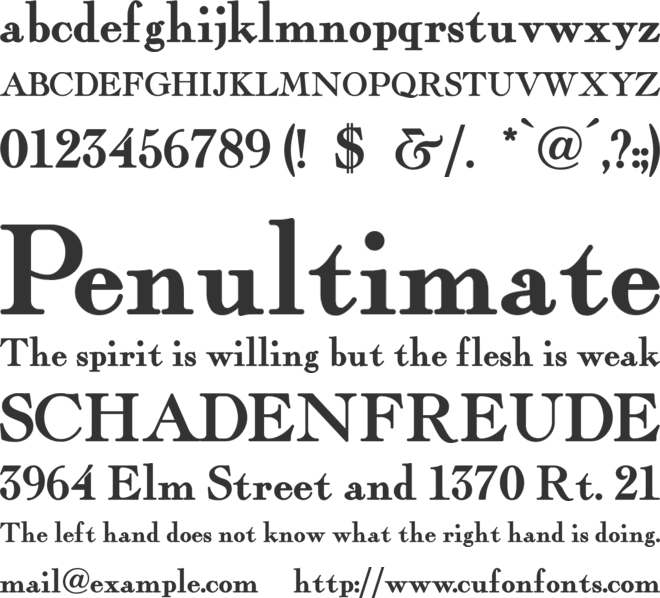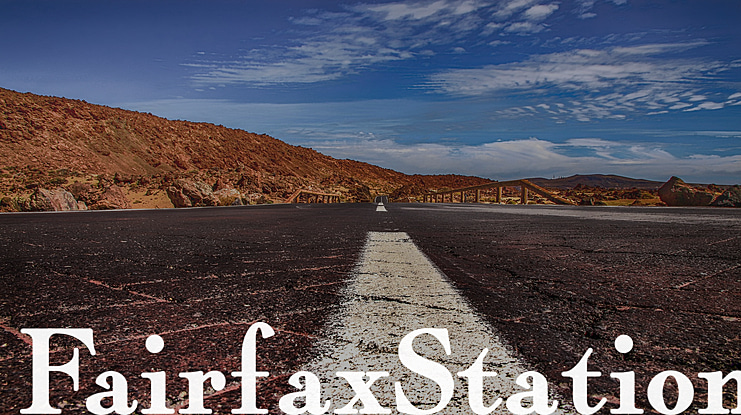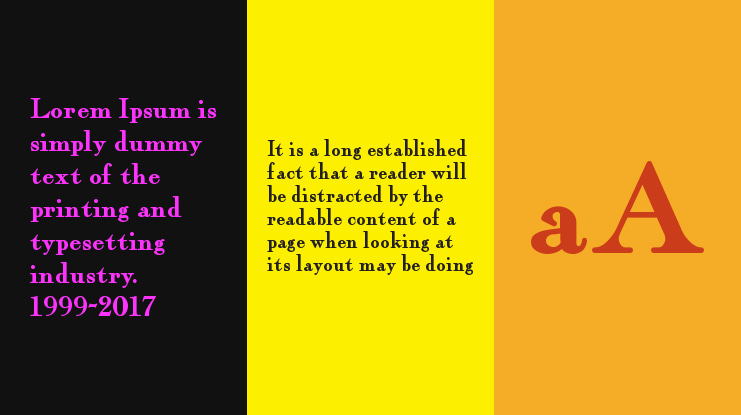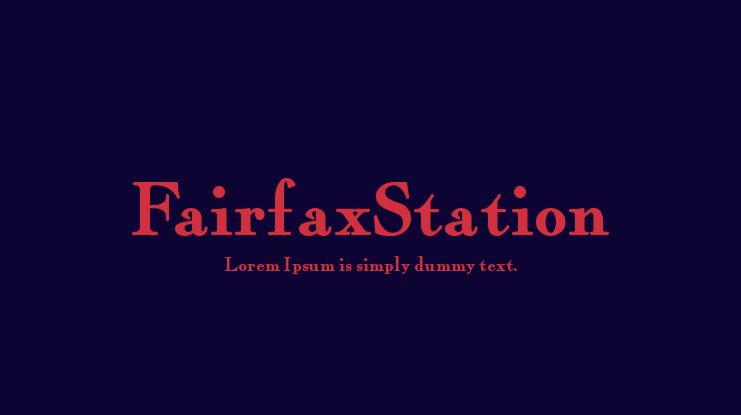
FairfaxStation Font
The first in a series of “Storybook Fonts,” patterned after typefaces commonly used in children’s books around the turn of the twentieth century. This font gets its letterforms from Caslon Openface, but the incising has been eliminated, the stroke broadened and the serifs rounded; it gets its name from a city in Northern Virginia, for no reason other than the name highlights some of the font’s characteristic charm so well.